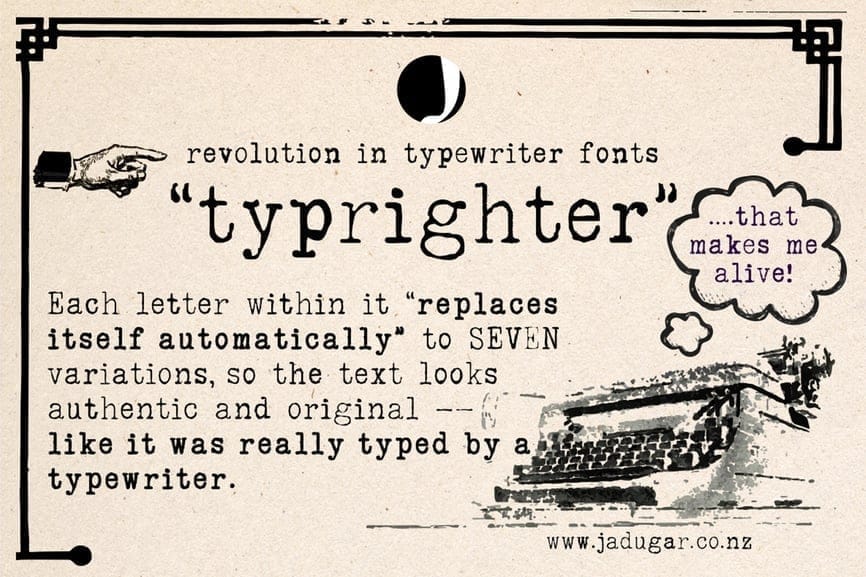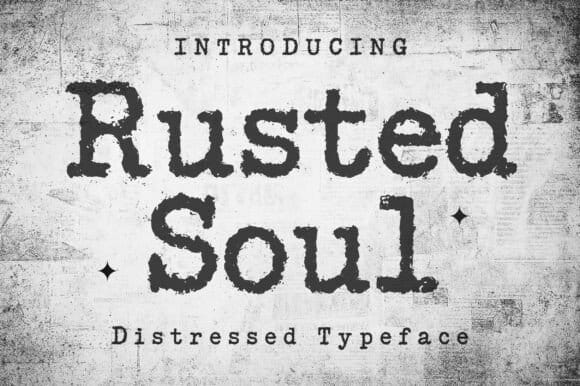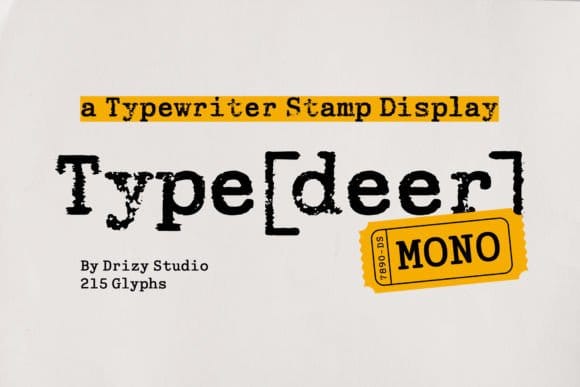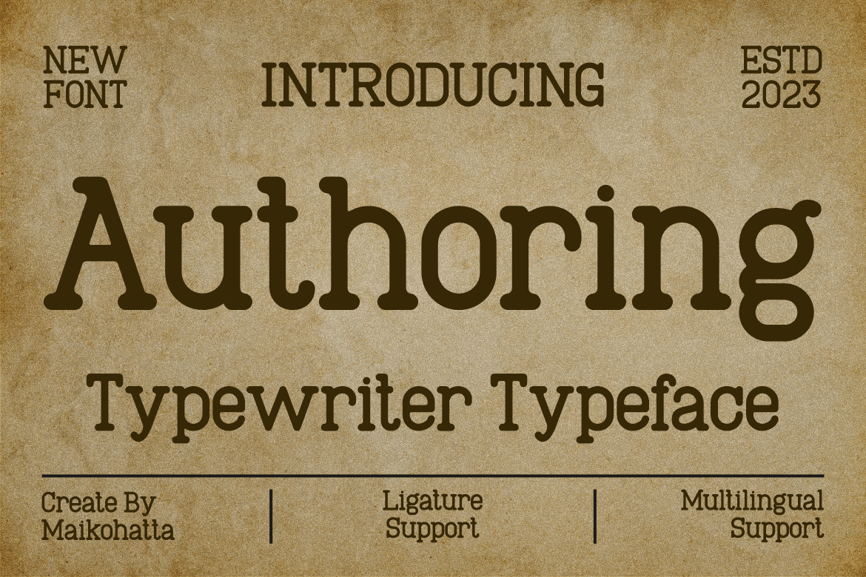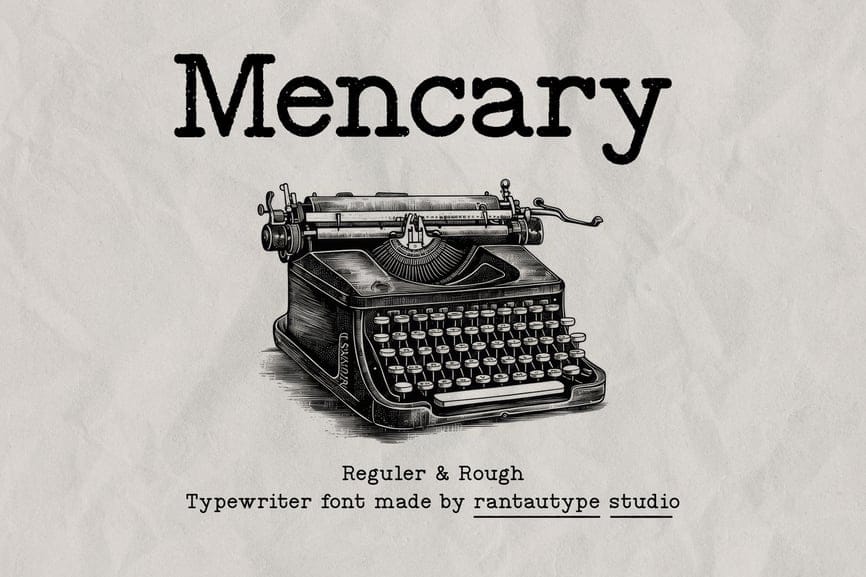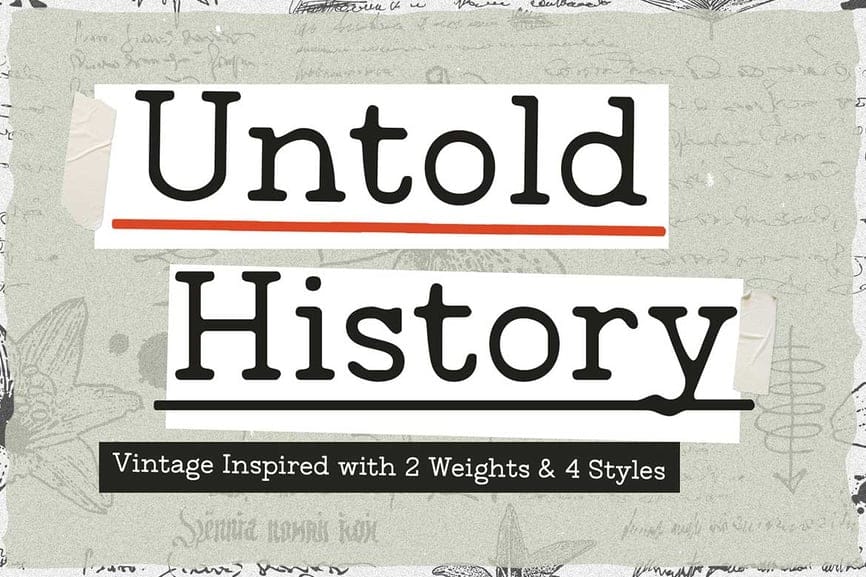
There's something undeniably cool about the look of a typewriter font. It instantly evokes a sense of nostalgia, a connection to classic literature, and a touch of industrial chic. In a digital world saturated with sleek, sans-serif designs, the distinct character of a typewriter font offers a refreshing and impactful visual alternative. This aesthetic resonates with a wide range of creatives, from graphic designers aiming for a vintage feel in their branding to writers seeking a font that mirrors the tangible act of putting words on paper. Web developers, too, are increasingly exploring how these fonts can add personality and depth to online experiences.
In this post, we'll provide 15 examples of typewriter fonts and explore why their unique characteristics continue to make them an emblematic choice for projects seeking a retro vibe with a modern twist.
In today's visually driven world, standing out is paramount. While clean and modern fonts certainly have their place, typewriter fonts offer a unique way to inject personality and historical depth into your projects. Their monospaced nature, where each letter occupies the same horizontal width, creates a distinct rhythm and visual texture that can instantly grab attention.
Consider this: a study by Nielsen Norman Group found that while users value clarity and readability online, unique visual elements can significantly enhance brand recall and create a more memorable experience. Typewriter fonts, with their inherent individuality, tap into this desire for distinction. They whisper tales of bygone eras, lending an air of authenticity and craftsmanship to everything from branding materials and website headers to social media graphics and editorial layouts. For writers, using a typewriter-style font can even foster a more deliberate and focused approach to their craft, subtly echoing the focused clack of a vintage machine. In a sea of uniformity, embracing the character of a typewriter font is a powerful way to make your message resonate and leave a lasting impression.
Let's dive straight into some fantastic typewriter fonts that can instantly infuse your work with that sought-after retro aesthetic. Each of these options brings its own unique flavor to the classic typewriter style.
This font embodies the quintessential typewriter look with its clear, slightly distressed characters. The monospaced nature is immediately apparent, lending that classic mechanical feel to any text. What makes X Typewriter particularly versatile is its clean legibility, ensuring it works well for both display purposes, like headlines and pull quotes, and longer blocks of text. The fact that it's licensed under the SIL Open Font License means you can freely incorporate it into a wide range of projects, both personal and commercial, without worrying about licensing fees – a fantastic resource for any designer or creator looking for an authentic typewriter aesthetic.
Veteran Typewriter, created by Koczman Balint and available from Magique Fonts, offers a slightly more stylized take on the classic typewriter. While maintaining the monospaced character, it incorporates subtle variations in stroke width, lending it a touch of personality without sacrificing legibility. This font is a great choice when you want a typewriter feel that's not too rigid, adding a hint of artistic flair to your text.
Dreamers Typewriter, from Jinan Studio, presents a more decorative take on the typewriter font. It maintains the monospaced structure but incorporates a slightly handwritten feel, making it less rigid and more approachable. This font could be a great choice for projects where you want a touch of vintage charm with a more personal and less industrial feel.
Enigma Typewriter Sans Font, created by DesignSomething, offers a grungier, more distressed take on the typewriter style. Inspired by the German Enigma machine, this font evokes a sense of mystery and vintage documentation. The significant texture and imperfections within the letterforms give it a very authentic and aged feel, making it perfect for projects aiming for a raw and historical aesthetic. It includes multilingual glyphs, expanding its usability for various languages.
Feedbacker is a versatile typewriter-inspired font by viswellstd that blends vintage charm with modern flexibility. It's available in textured and bold styles, making it suitable for nostalgic and retro-themed projects, from editorial design to branding and lettering. The font's authentic and handmade feel adds a timeless, rustic touch to creative works while offering flexibility for various design needs. It's described as a classic serif typeface, delivering both charm and personality.
Detective Typewriter Typeface, from HipFonts and available on Creative Fabrica, is a classic serif font that blends old-fashioned charm with a modern typographic sensibility. It's designed to evoke the look of business correspondence from a bygone era, or any project requiring an old-fashioned, personal touch. Its clear, monospaced characters give it an authentic feel, perfect for projects aiming for a mystery, top-secret, or classic vintage aesthetic. This font is also noted for its commercial usage allowance, making it a versatile asset for designers.
Chronicles Secret, created by creatifontstudios, is a monospace typewriter font that effectively tells stories of suspense and mystery, inspired by the rhythmic clatter of vintage typewriters. It comes with three distinct styles: Regular (angular), Rounded, and Blur, offering a unique blend of classic typewriter charm and contemporary flair. This versatility ensures it's suitable for a wide range of narratives, whether you're aiming for precision, warmth, or a dreamlike intrigue. Its varied ligatures further enhance its typographic appeal, echoing the intricate dance of typewriter keys. This font is an excellent choice for designs that require a touch of vintage magic and a sense of intrigue.